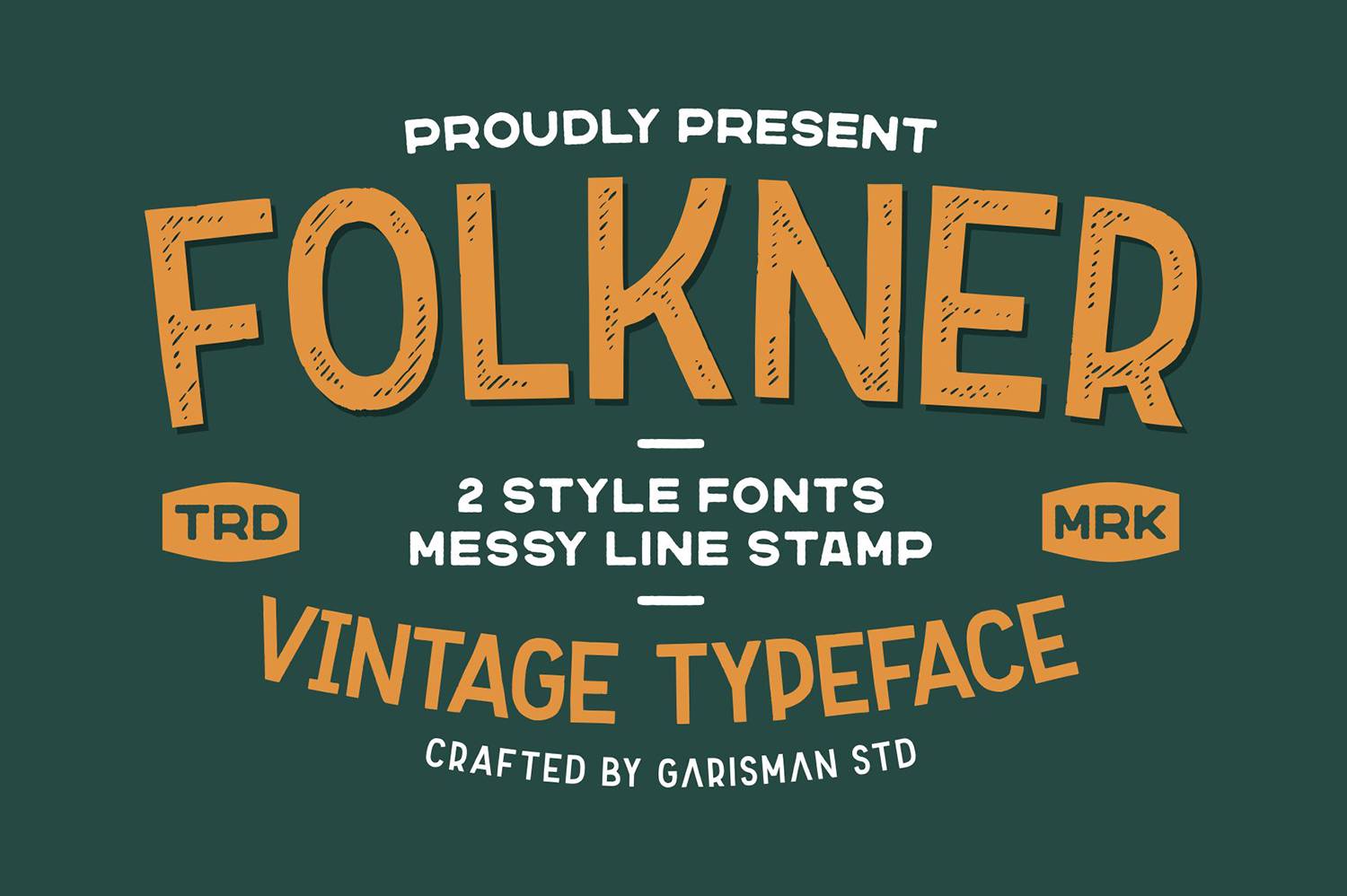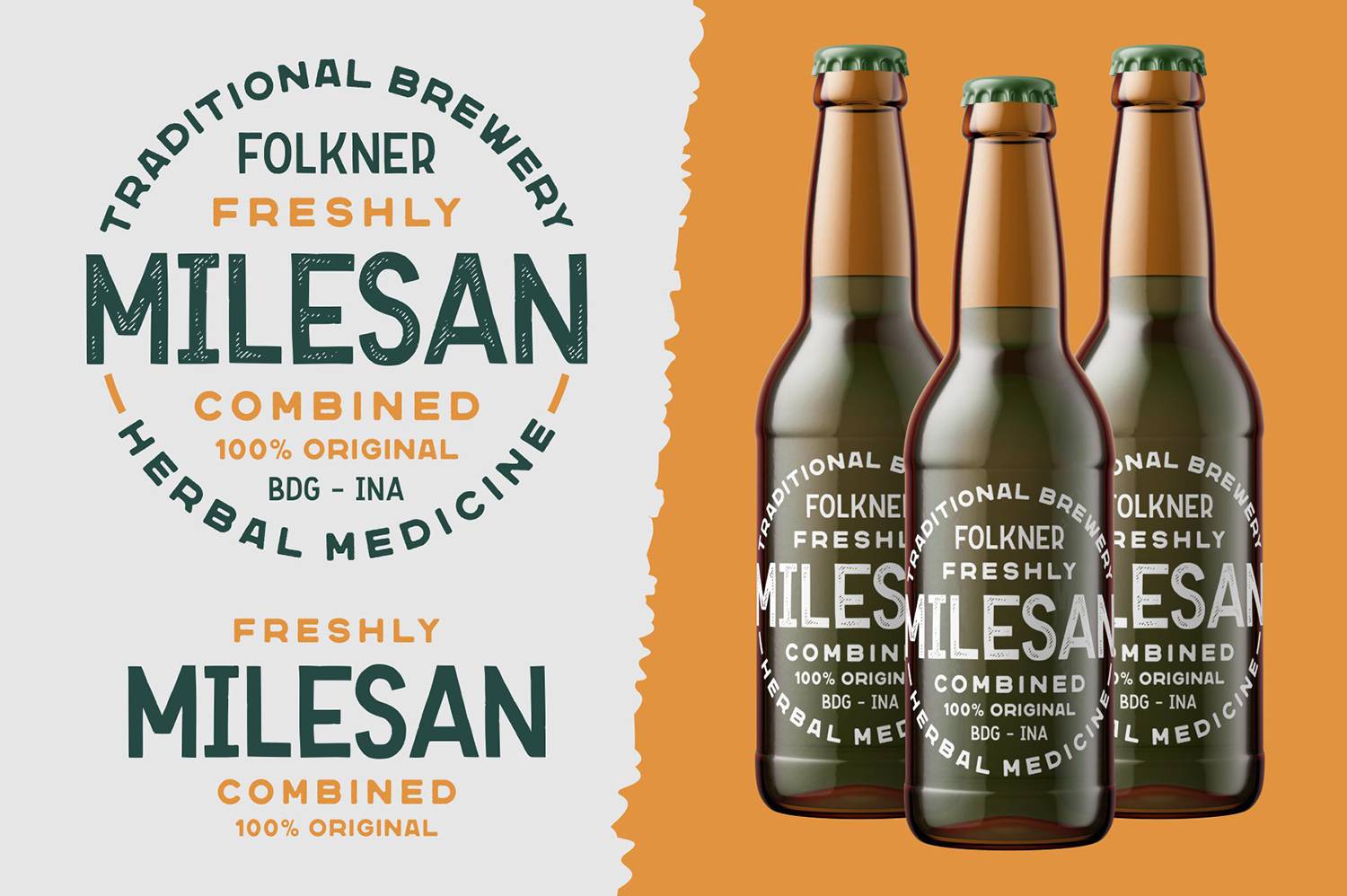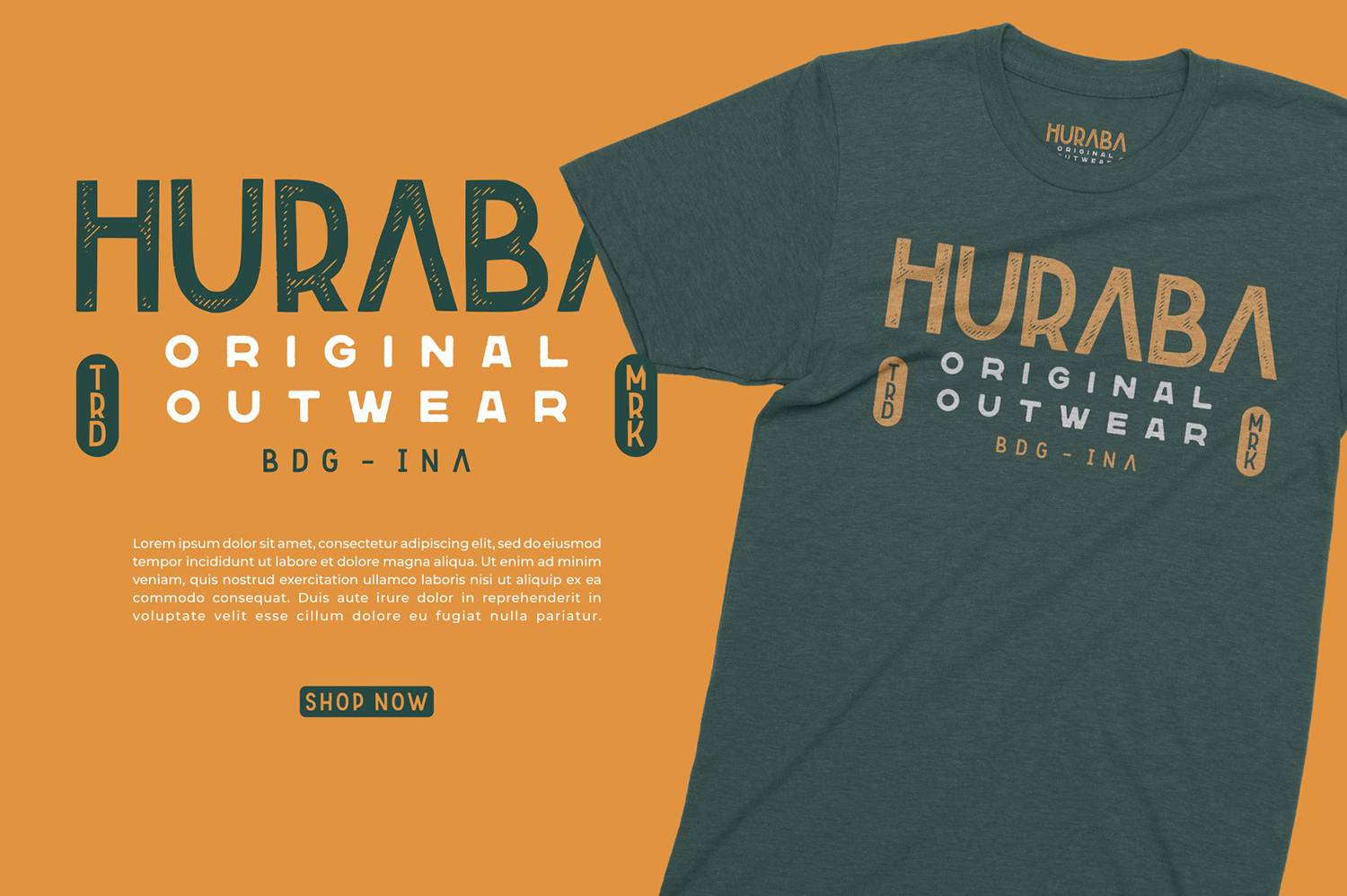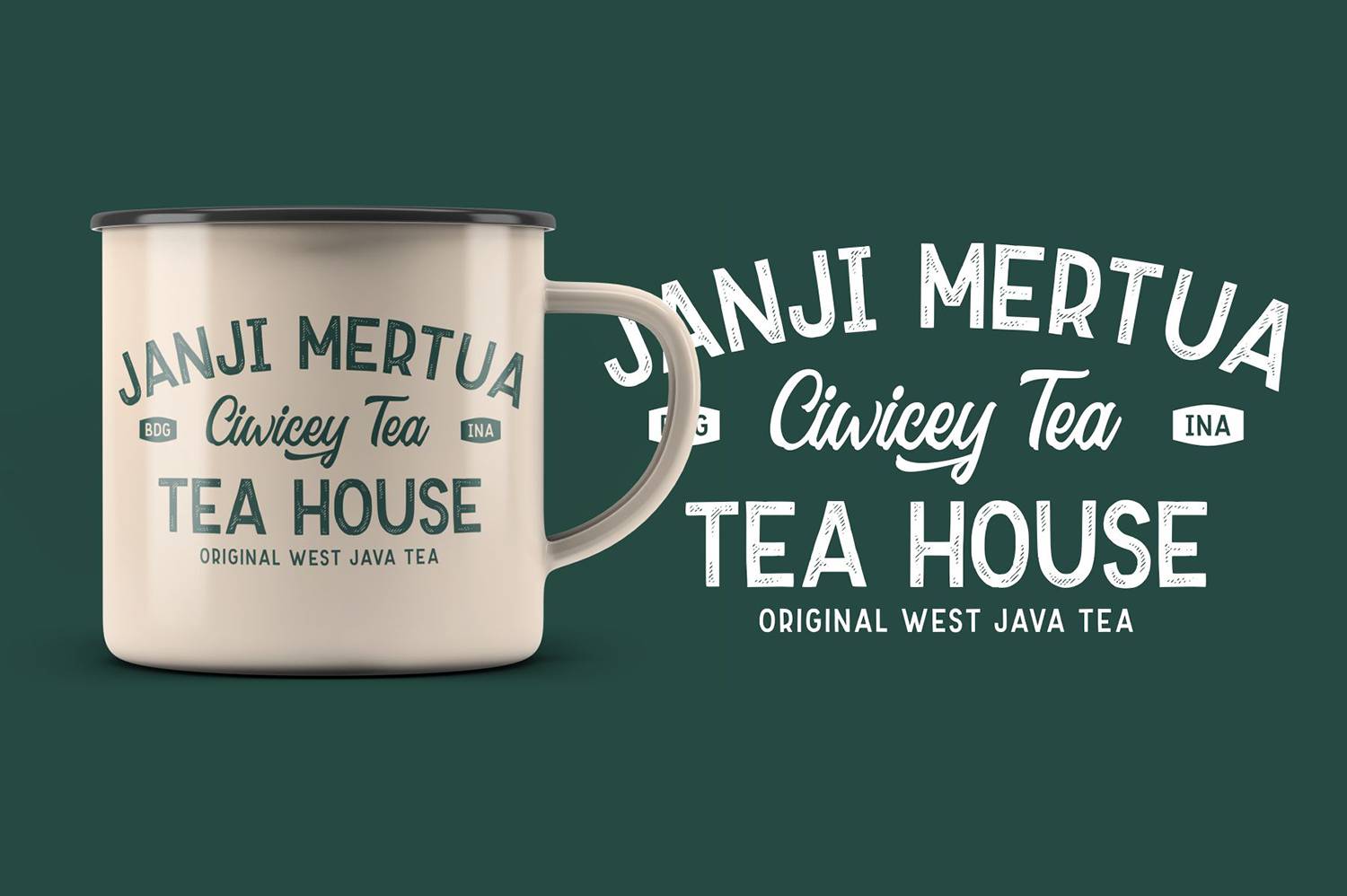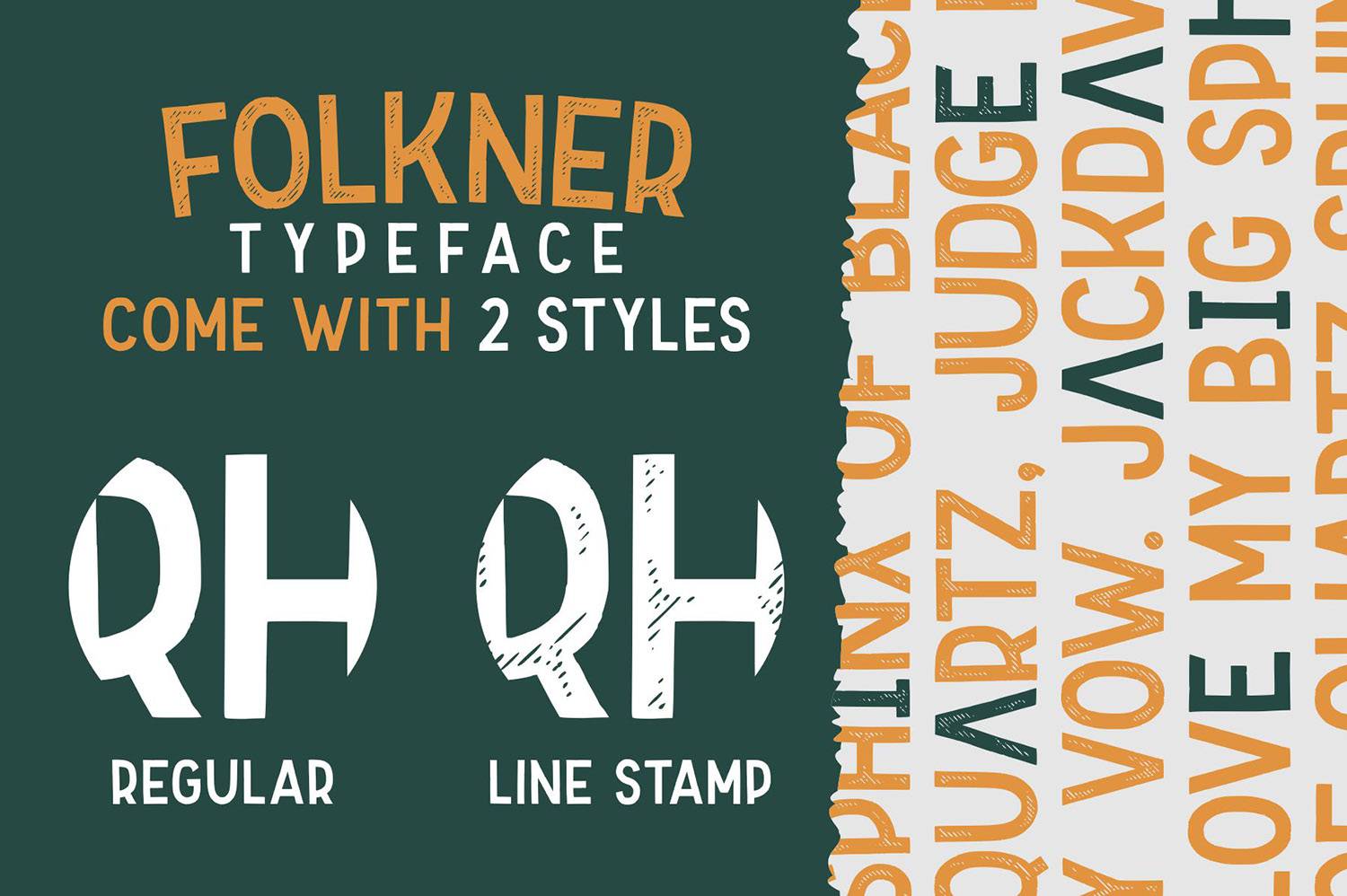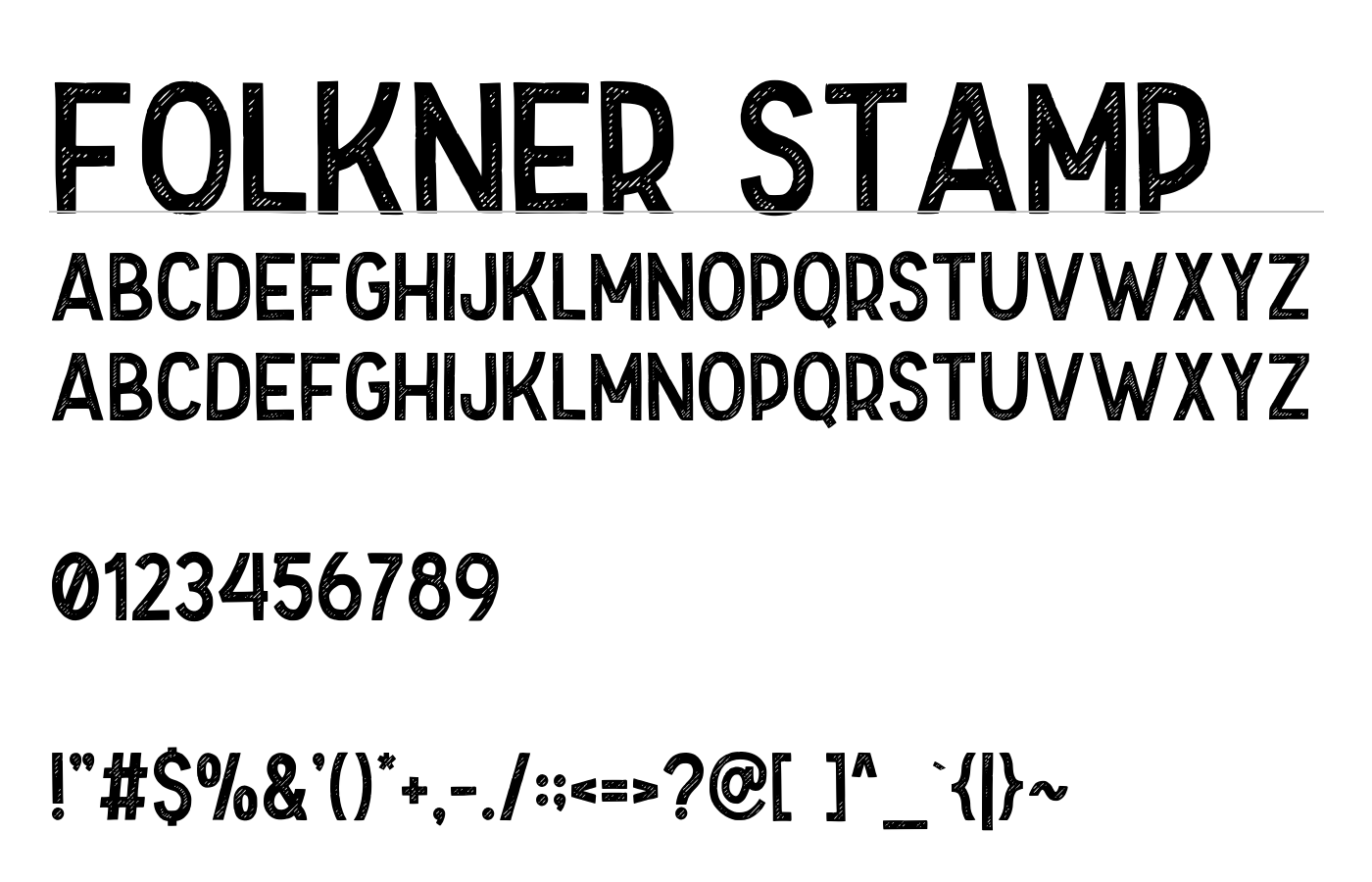
Folkner Stamp is a playful sans serif font with a hand-drawn, textured style that gives it a casual and approachable feel. Its irregular lines and slightly condensed letterforms make it ideal for creative and informal designs, perfect for logos, posters, and packaging that want to convey a fun, friendly, and unique personality. This font works especially well in headline use, adding a handcrafted touch that stands out in both print and digital projects.
Folkner Font
About Folkner Font
| Font family | Folkner Font |